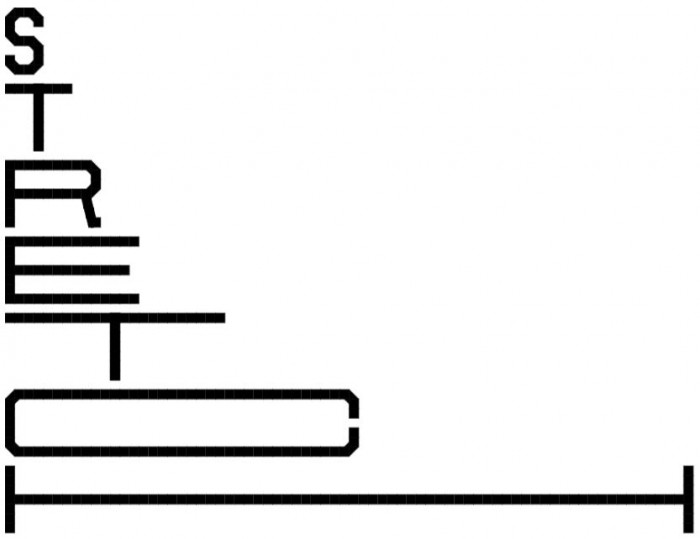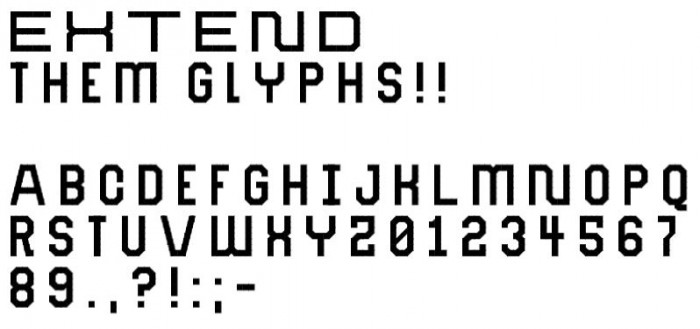
yep another extend font
stretch codes:
a=A@@@@a b=B____b c=C***c d=D***d e=E___e f=F"""f g=G___g h=H###h i=((Ii)) j=J$$$j k=K###k l=L$$$l m=M%%+%%m n=N%%-$$n o=O***o p=P"""p q=Q***q r=R"""r s=S___s t=%%Tt%% u=U$$$u v=V$$$v w=W$$&$$w x=X###x y=Y##/##y z=Z___z 0=0___| 1=1W / ((I$$$$ 2=2___< 3=3___b 4=4##>## 5=5___= 6=6___s 7=7"""\ 8=8___b 9=S___9 .=. ,=, "=' ' '=' ?=?"""` !=! :=: ;=; -=###
Since currently the inter-character space has to be added manually, it could be smaller, or simply incorporated just in the closing character. Letterspacing alone does not solve this.
For some reason I decided to make an entire font because of seeing this